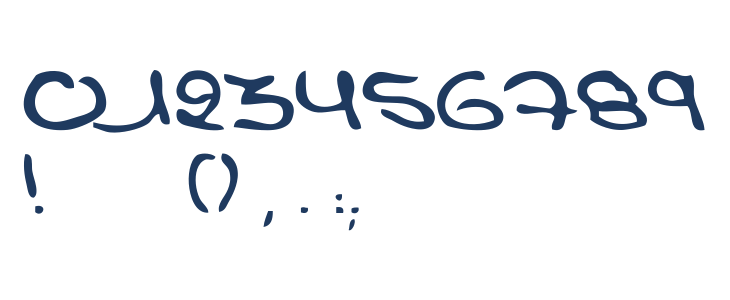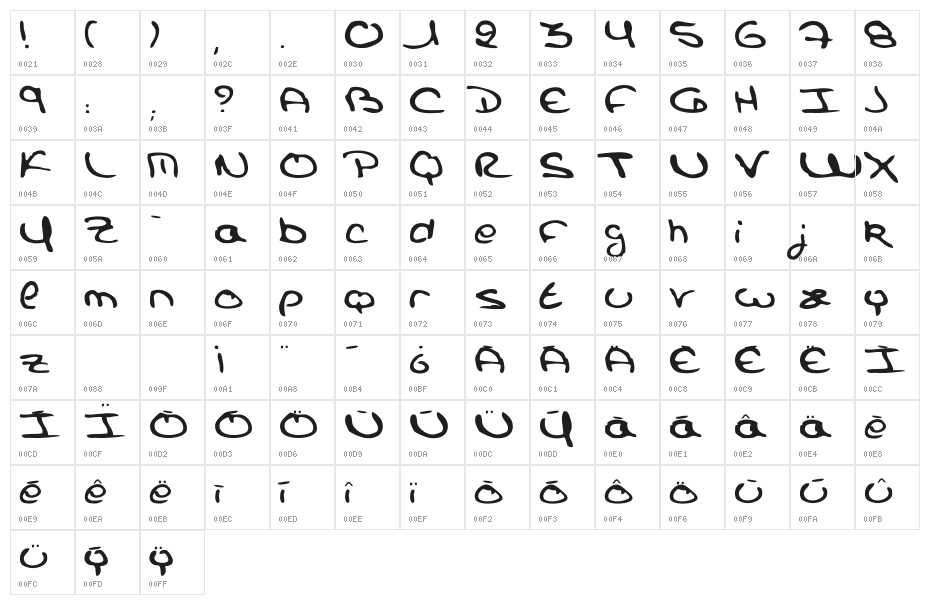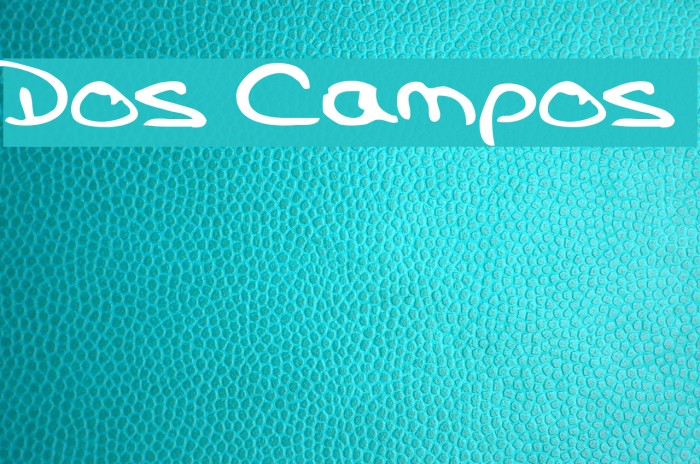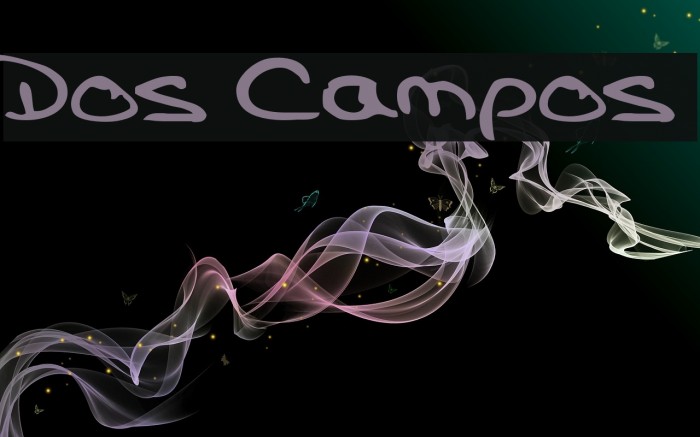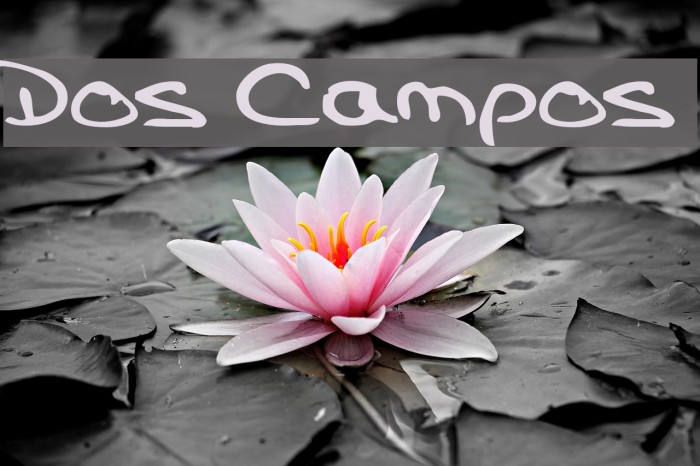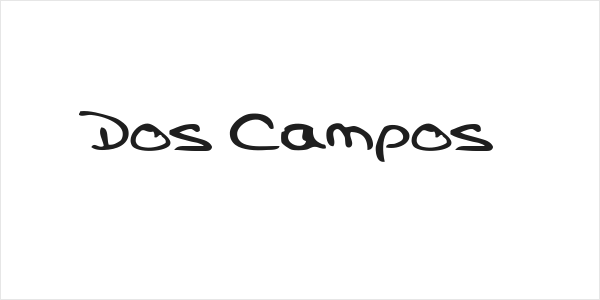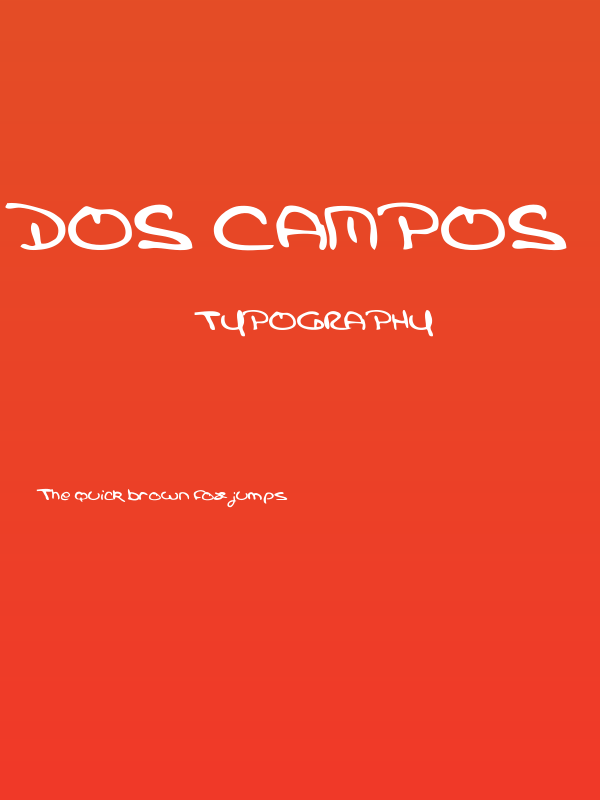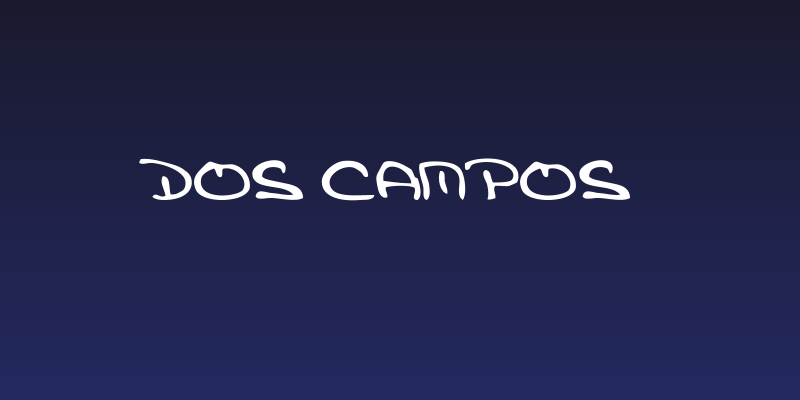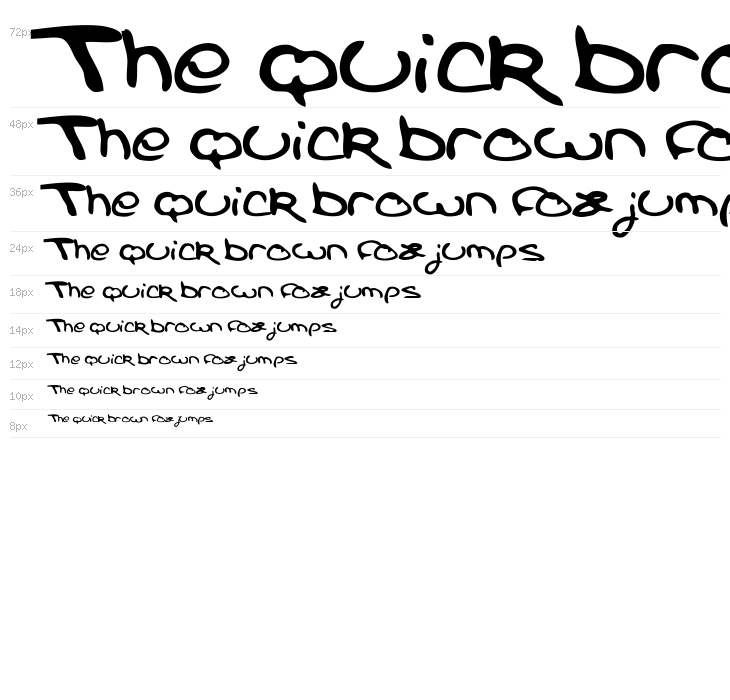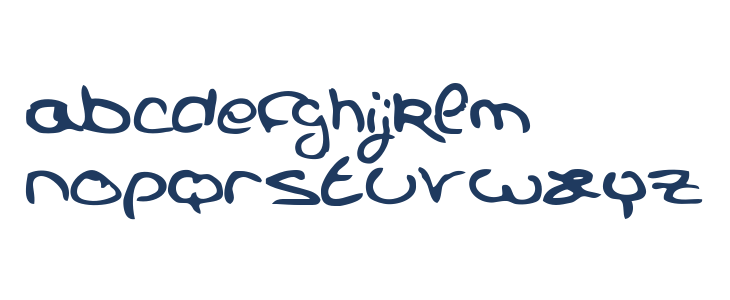
Dos Campos Font
Dos Campos Description
This font features a playful and artistic style with a handwritten appearance. The characters are bold and have a fluid, organic feel, with varying stroke thickness that adds a dynamic quality. The uppercase letters are slightly more structured, while the lowercase letters exhibit more curves and loops, enhancing the casual and informal vibe. The numerals and special characters maintain the same lively and expressive design, making the font versatile for creative projects. The overall impression is one of spontaneity and creativity, suitable for designs that aim to convey a sense of fun and individuality.